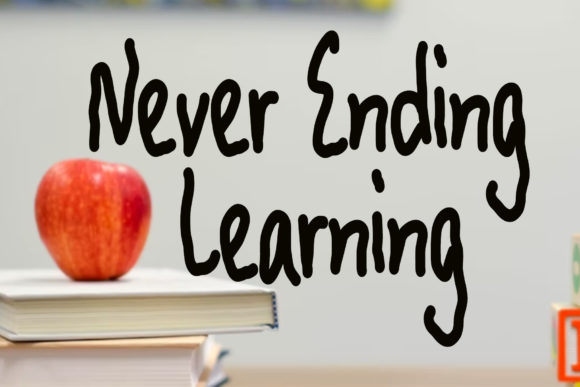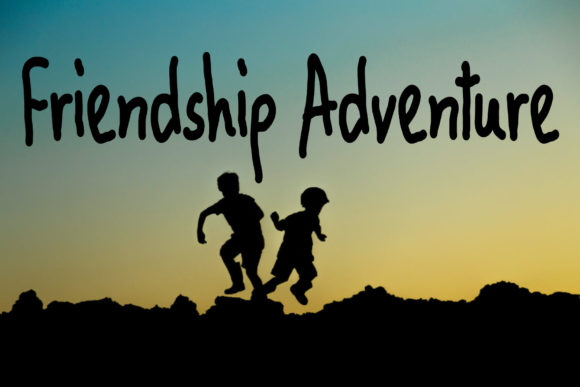
Kids Handwriting Font
db-ku.com - Script & Handwritten -- Kids Handwriting is a wavy and simple handwritten font. Suitable to a wide variety of designs due to its neat and simple style, this font has the potential to become your favorite go-to font, no matter the occasion!